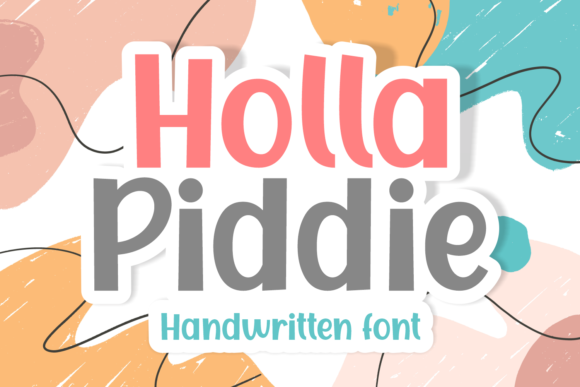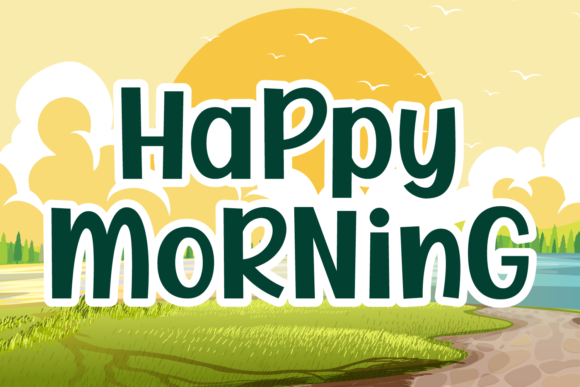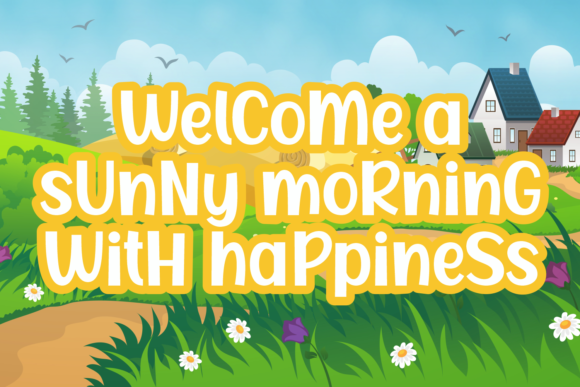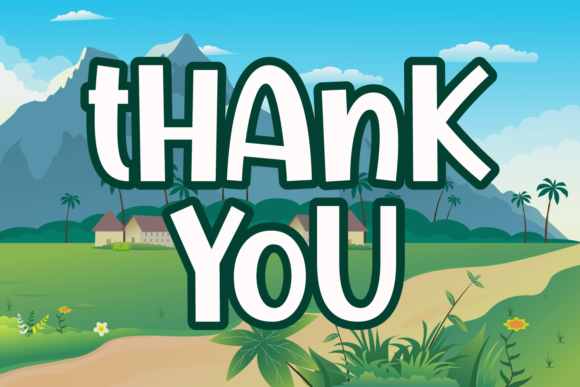
Holla Pidie Font
About Holla Pidie Font
Holla Pidie is a cute and playful handwritten font that brings a delightful and charming vibe to your designs. This typeface is perfect for a range of creative projects, including spring cards, birthday invitations, posters, quotes, branding, t-shirts, and more. Its playful nature adds a touch of joy and whimsy to your text, making it a versatile and engaging choice.
The cuteness of Holla Pidie is evident in its handwritten style, which exudes a friendly and approachable feel. This makes it ideal for projects where you want to convey a sense of playfulness and create a positive and inviting atmosphere. Whether used for birthday invitations or t-shirts, the font adds a cheerful and lighthearted touch.
Holla Pidie’s playful design allows it to adapt seamlessly to various design contexts. Its versatility ensures that it can be applied to a wide range of creative projects, allowing you to infuse a sense of fun and creativity into your designs.
In summary, Holla Pidie is more than just a font; it’s a cute and playful handwritten typeface that adds joy and whimsy to your creative endeavors. Whether used for spring cards, birthday invitations, posters, or branding, let Holla Pidie be the font that infuses a sense of charm and playfulness into your designs, making each piece a delightful expression of creativity.